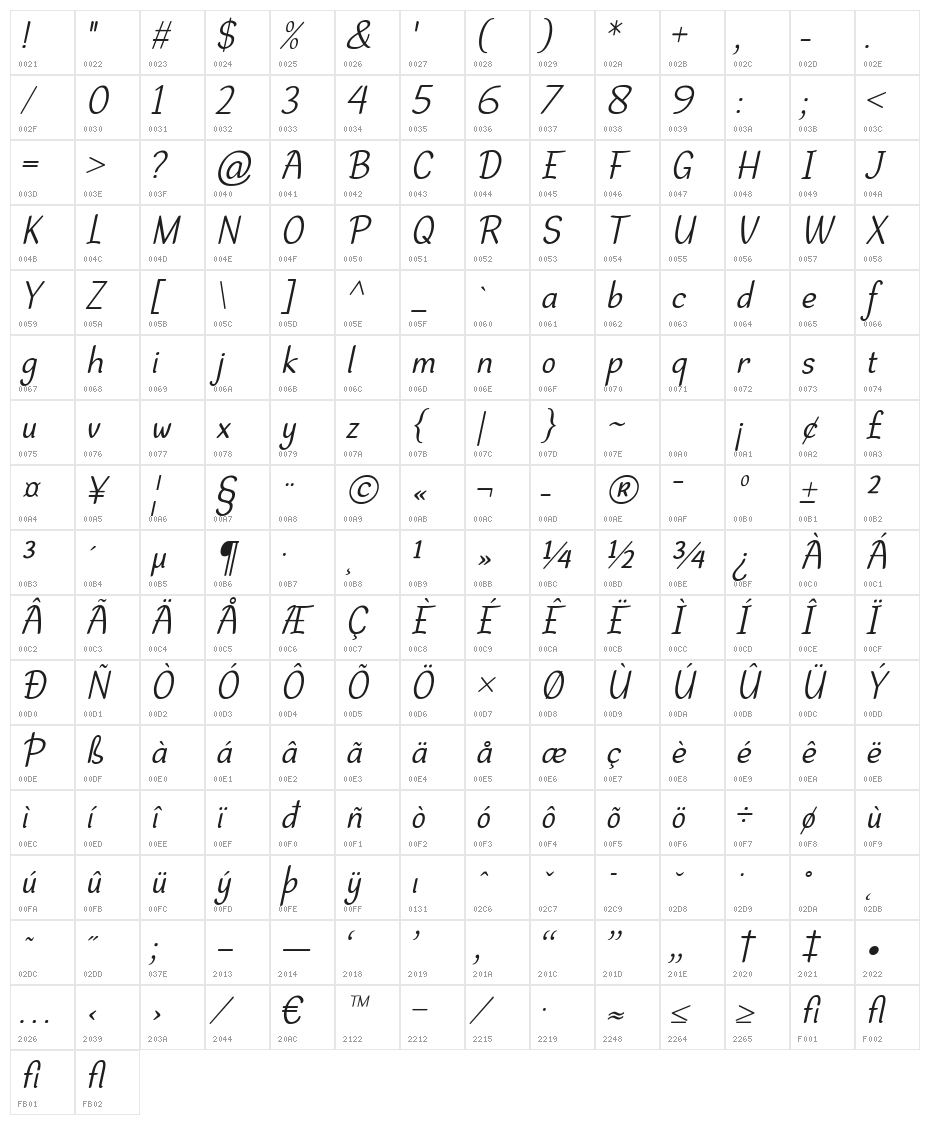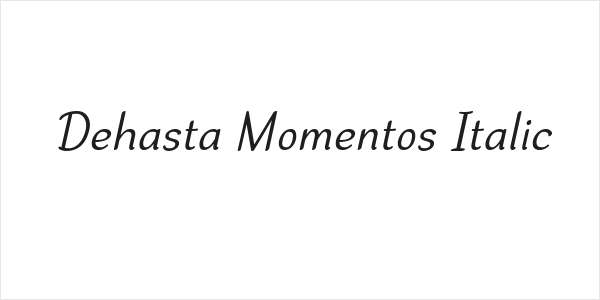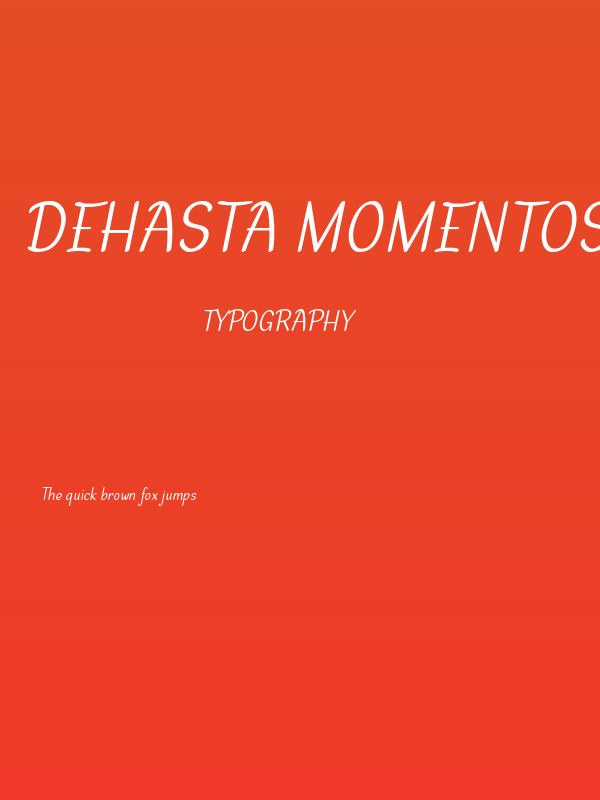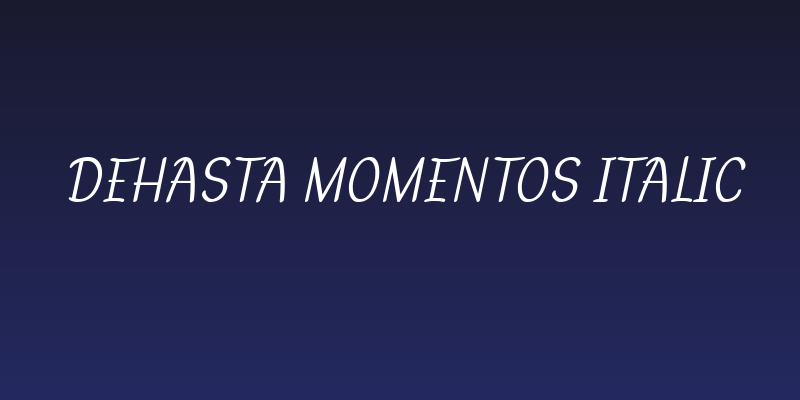
Dehasta Momentos Italic Font
Dehasta Momentos Italic Description
This font features a smooth, flowing script style with a slight slant, giving it an elegant and dynamic appearance. The characters are well-balanced with a consistent stroke width, enhancing readability while maintaining a stylish flair. The uppercase letters are slightly taller than the lowercase, providing a clear distinction between the two. The numerals are designed to match the overall aesthetic, ensuring uniformity across all characters. Special characters and punctuation are crafted with the same attention to detail, making this font versatile for various applications. Its italic nature adds a touch of sophistication, suitable for both formal and creative projects.
| Proposed Projects | Ideal for wedding invitations, elegant branding, personal stationery, and artistic projects. |